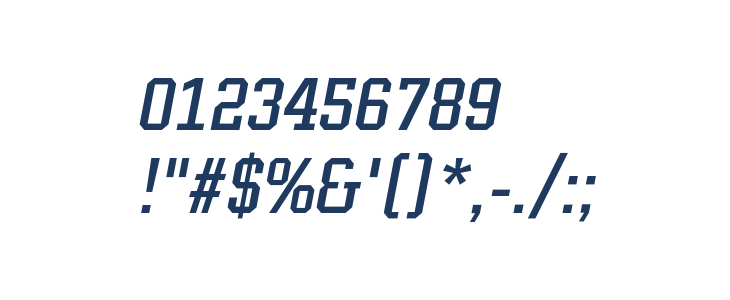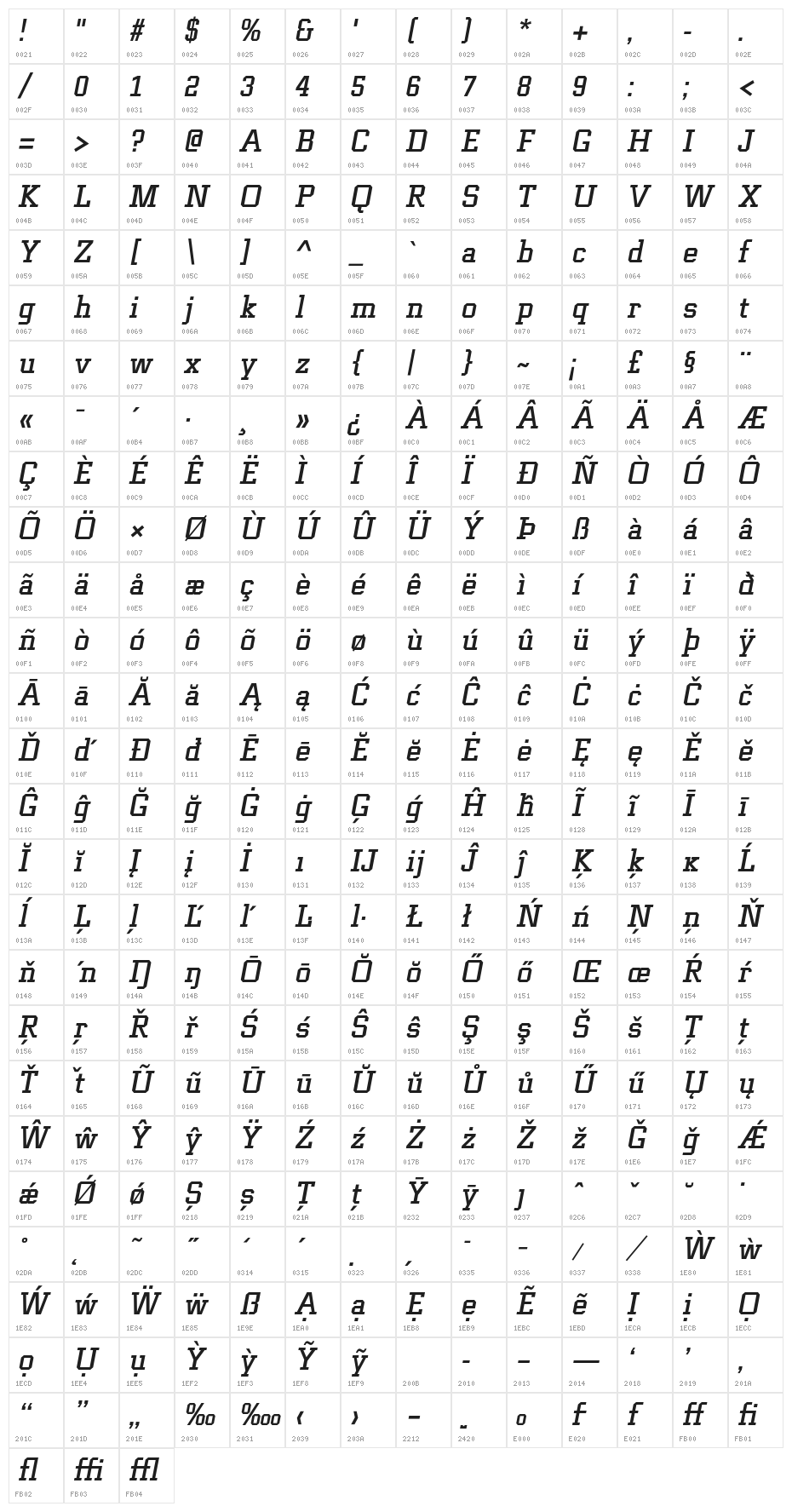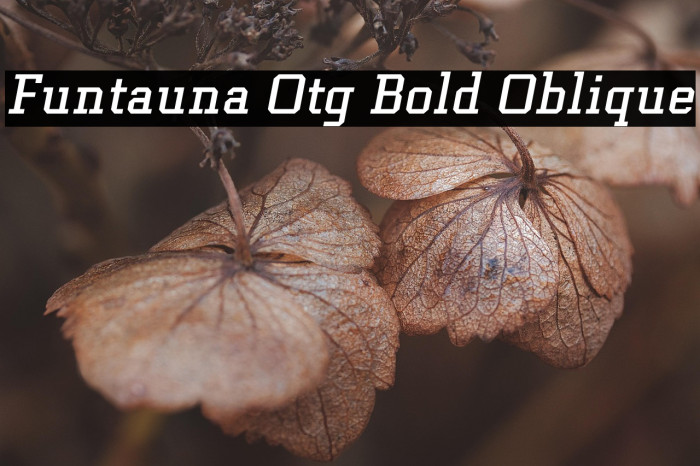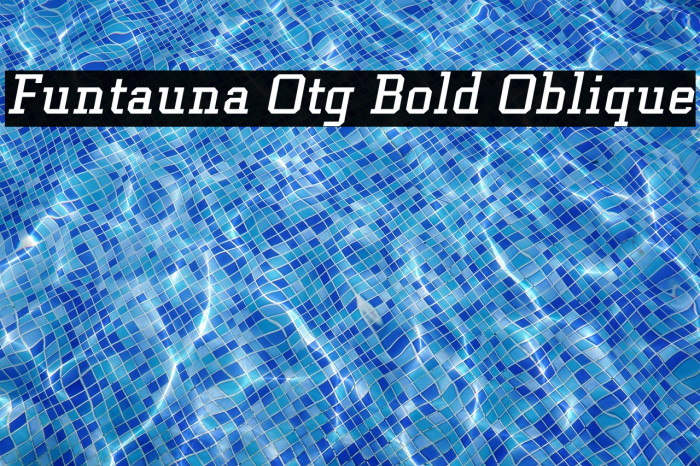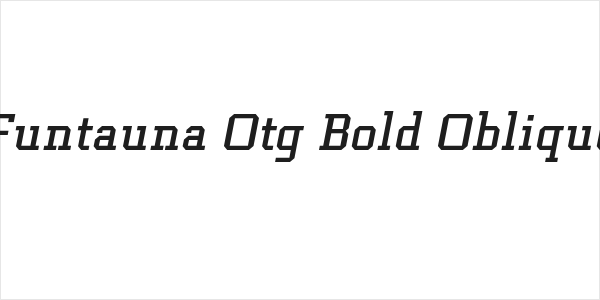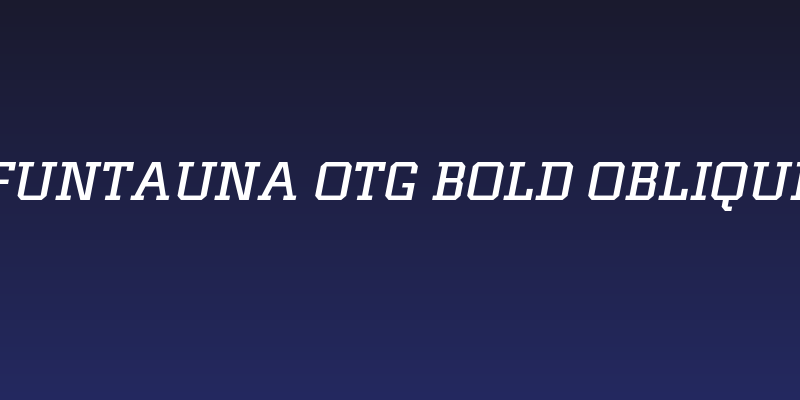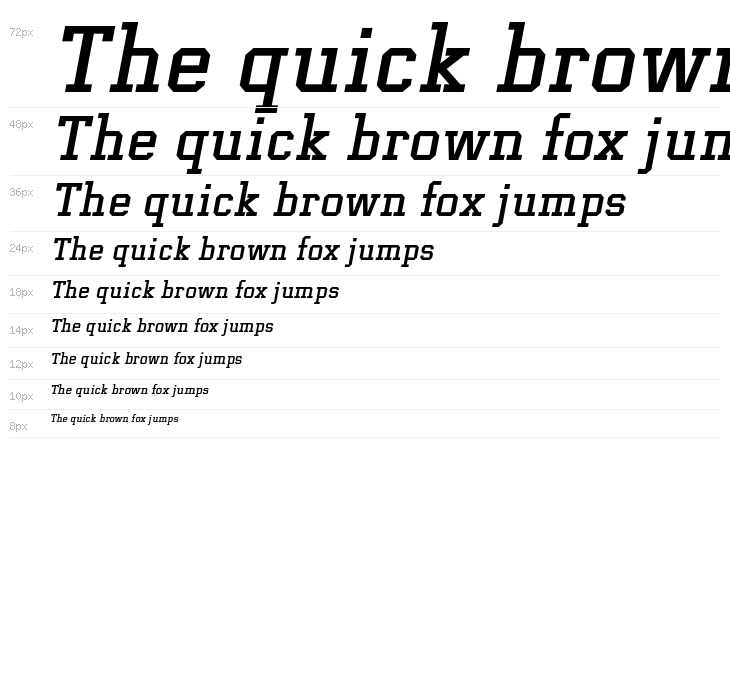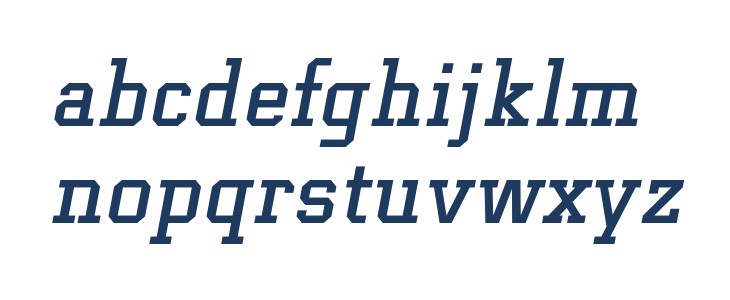
Funtauna Otg Bold Oblique Font
Funtauna Otg Bold Oblique Description
This font exhibits a bold and oblique style, characterized by its strong, angular lines and dynamic slant. The uppercase and lowercase letters maintain a consistent slant, giving the typeface a sense of motion and energy. The numerals and special characters follow the same stylistic cues, ensuring uniformity across all glyphs. The bold weight of the strokes enhances readability, making it suitable for impactful design applications. The font's geometric structure and sharp edges contribute to a modern and assertive appearance, ideal for projects requiring a bold statement.